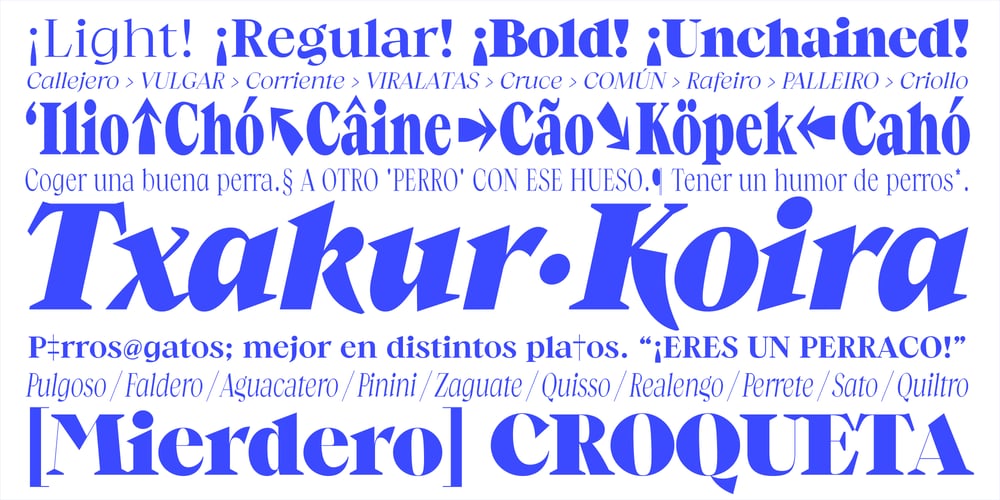
Guau Font Family was designed by Carlos Campos and published by Cuchi, qué tipo. Guau contains 21 styles and family package options. From the abyss and the quarantine hell, drawn in absolute lonelyness, and finished during the darkest hours of confinement… “Guau” is born, the type that barks directly at your face!”Guau” is a high-contrast display font with as many weights and versions as there are types of puppies in this fantastic world. It is thought to bring up glances in middle and heavy boxing weights, although you can also take its compressed and italic styles just for a walk. “Guau” is a font with three axes (italic, weight and width) and 20 instances, and it also contains thousands of glyphs and Opentype features that means a “guaorld of posibilities”.This name comes from the time when you could only go to the street to take a walk to your pooch. Definitely, “Guau!, your new best friend!”.